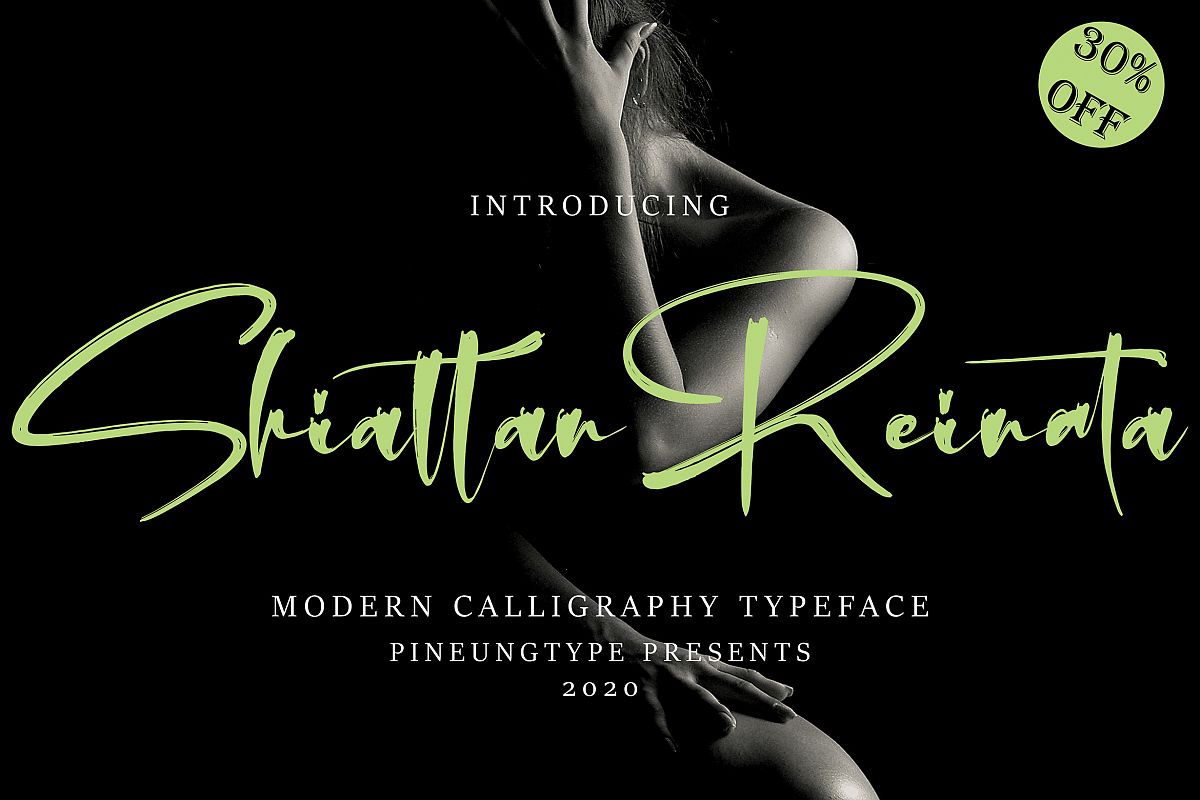
Shiattan Reinata
Shiattan Reinata handwritten font with new style, this font will perfect for many different project ex: quotes, logo, blog header, poster, banding, fashion, apparel, letter, invitation, stationery, etc...